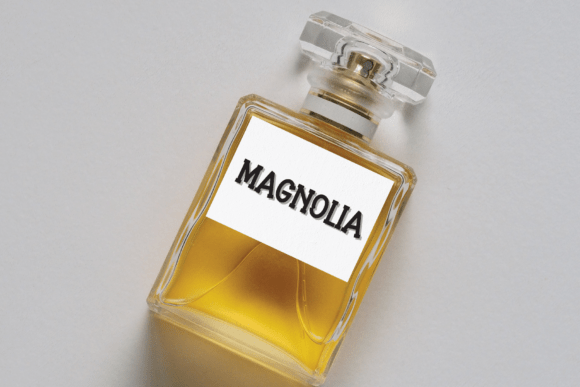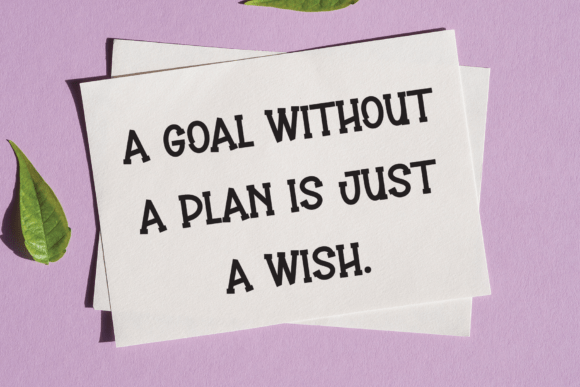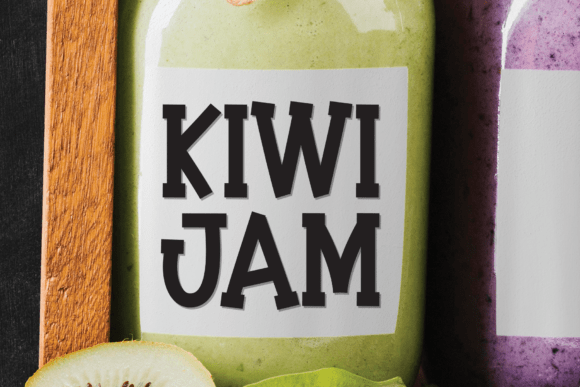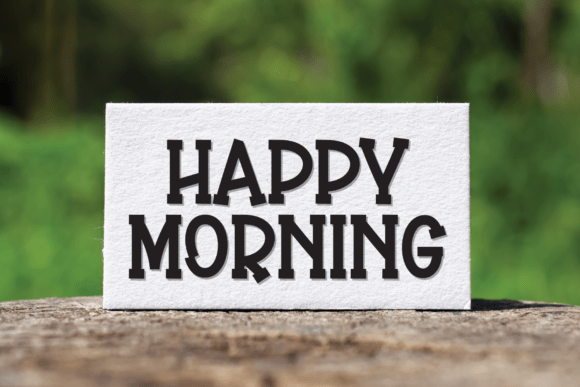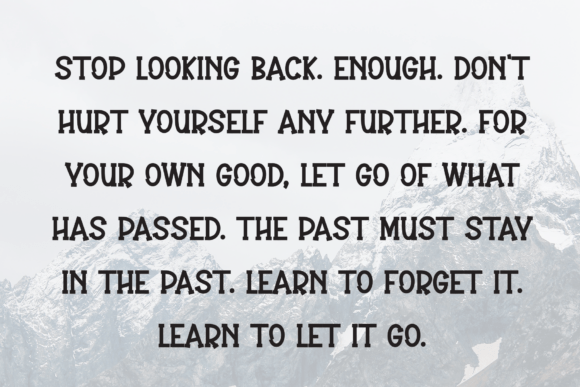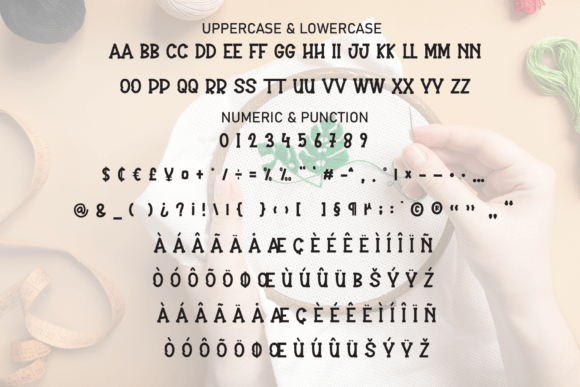
Embroidery Font: The Perfect Blend of Modern Simplicity and Playful Charm
Are you a designer or crafter looking for a font that can add a touch of personality to your projects? Look no further than the Embroidery Font. This casual display font is designed to blend modern simplicity with a playful, approachable vibe, making it perfect for a wide range of applications.
Clean Shapes, Soft Edges, and Well-Balanced Letterforms
One of the standout features of the Embroidery Font is its clean shapes, soft edges, and well-balanced letterforms. These characteristics come together to create a font that is not only visually appealing but also highly legible. The clean shapes and soft edges give the font a friendly and approachable feel, while the well-balanced letterforms ensure that the text is easy to read.
Ideal for a Wide Range of Applications
The Embroidery Font is incredibly versatile and can be used for a wide range of applications. Whether you’re designing posters, branding materials, packaging, or social media graphics, this font is sure to add a fresh and friendly touch to your project. Its casual and approachable vibe makes it perfect for designs that require a bit of personality and whimsy.
Poster Design
When it comes to poster design, the Embroidery Font is an excellent choice. Its bold and playful character makes it perfect for grabbing the attention of your audience. Whether you’re designing a poster for a concert, festival, or sale, this font is sure to make your design stand out.
Branding and Packaging
The Embroidery Font is also an excellent choice for branding and packaging design. Its friendly and approachable vibe makes it perfect for companies that want to convey a sense of warmth and approachability. Whether you’re designing a logo, label, or packaging material, this font is sure to add a touch of personality to your design.
Social Media Graphics
In today’s digital age, social media graphics are an essential part of any marketing strategy. The Embroidery Font is perfect for social media graphics, as it adds a fresh and friendly touch to any design. Whether you’re designing a Facebook post, Instagram story, or Twitter header, this font is sure to make your design stand out.
Versatile Character and Eye-Catching Appeal
One of the things that sets the Embroidery Font apart from other fonts is its versatile character and eye-catching appeal. This font is designed to deliver both readability and personality, making it perfect for designs that require a bit of flair. Whether you’re designing for print or digital, this font is sure to make your design stand out.
In conclusion, the Embroidery Font is an excellent choice for designers and crafters looking for a font that can add a touch of personality to their projects. Its clean shapes, soft edges, and well-balanced letterforms make it perfect for a wide range of applications, from poster design to branding and packaging. With its versatile character and eye-catching appeal, this font is sure to deliver both readability and personality.